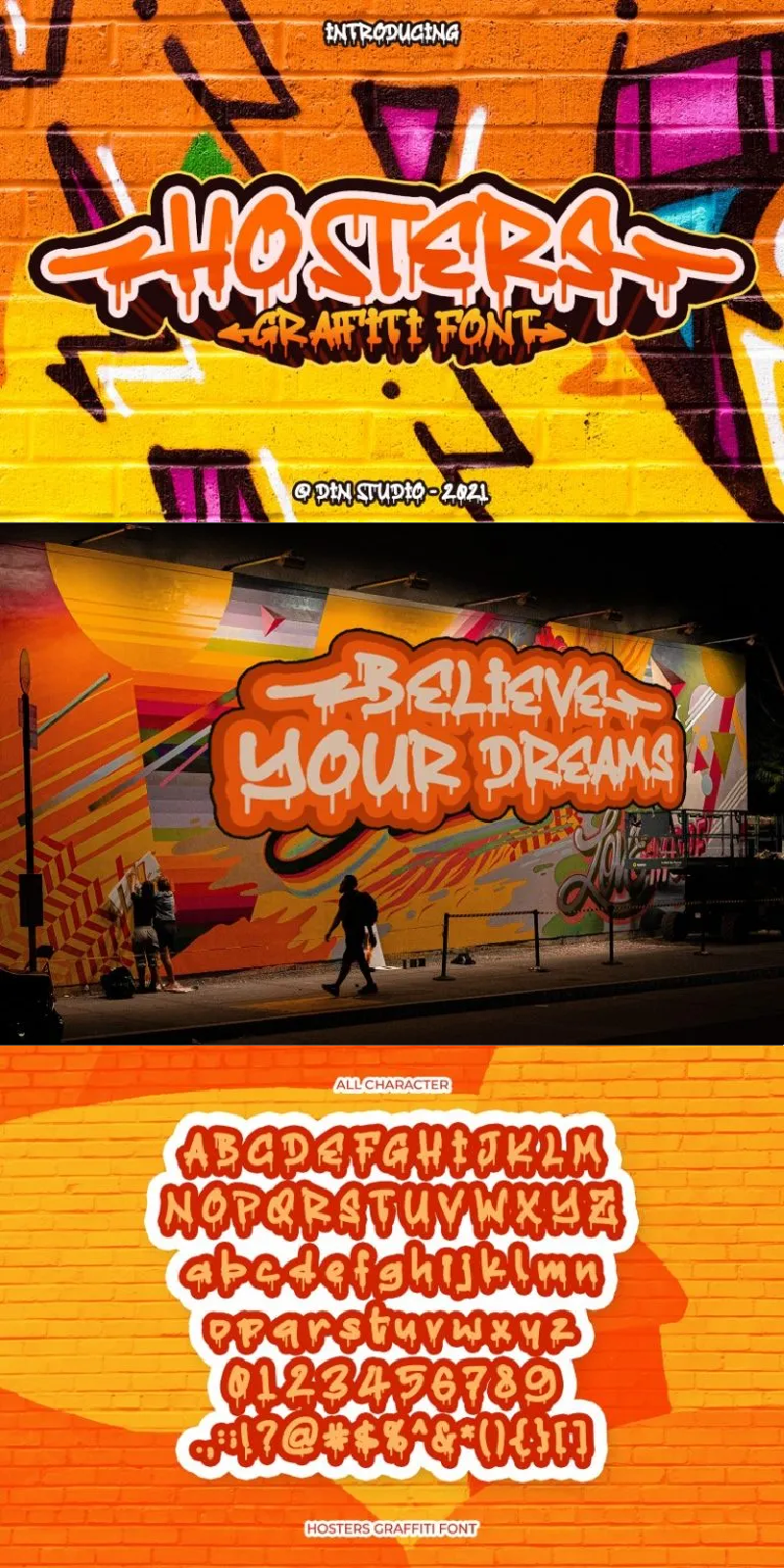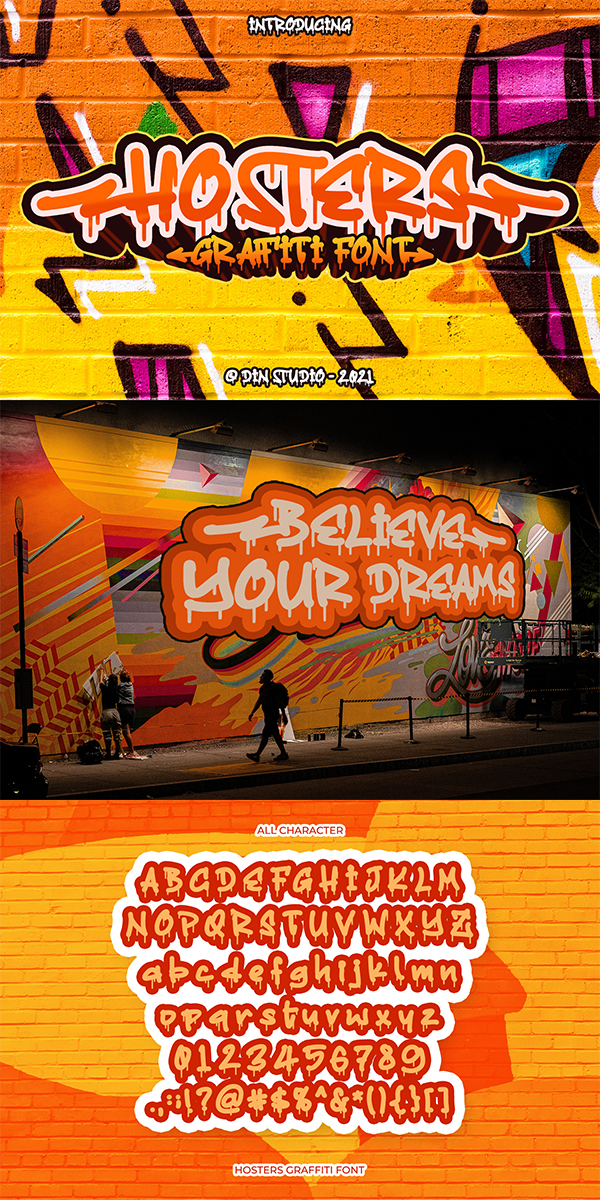
Hosters Font
About Hosters
Hosters is a colorful graffiti bubble font that drips down the page as if it was painted there just moments ago. An expertly crafted design, complemented by a joyful and fun vibe, which is well suited to a wide range of logos, headlines, branding, t-shirt, and poster applications.
It is perfect to be used for many design projects, such as poster, logo, book cover, branding, heading, printed product, merchandise, quotes, social media campaign, etc. Learn more about how to use it by seeing the font preview.